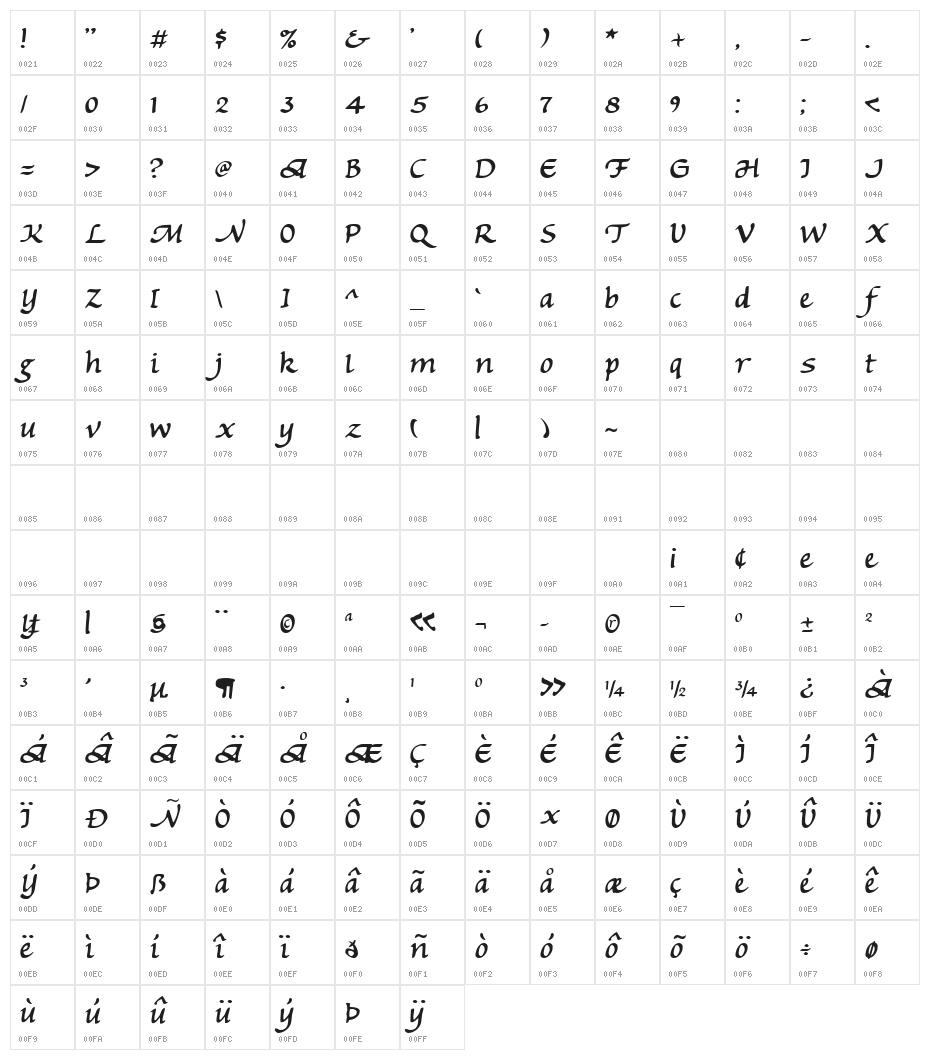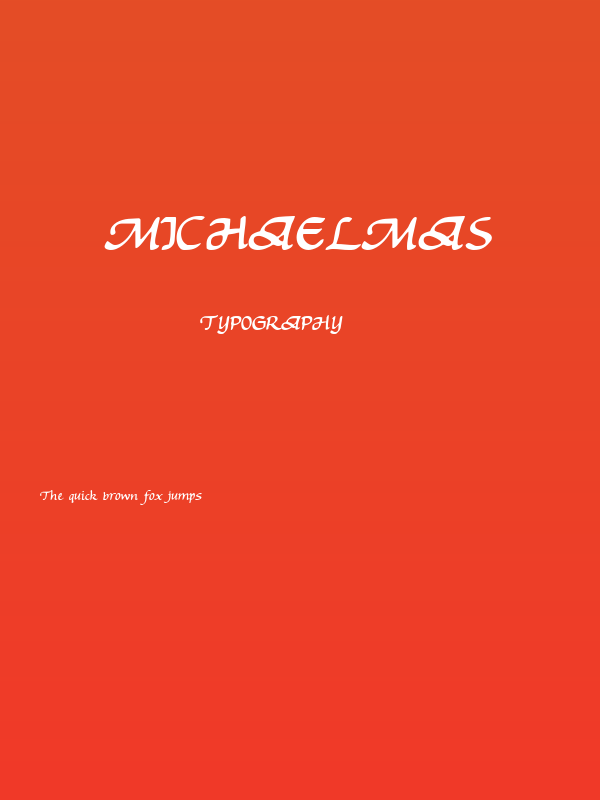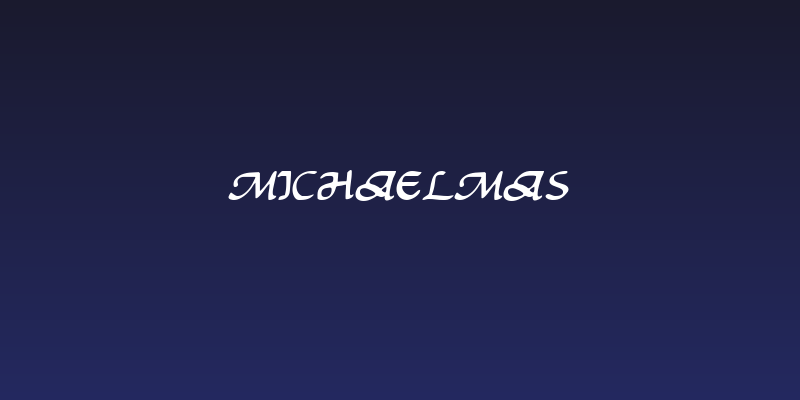
Michaelmas Font
Michaelmas Description
This font features a dynamic and flowing script style, characterized by its elegant and slightly whimsical curves. The uppercase letters exhibit a sense of movement with their sweeping lines and distinctive flourishes, while the lowercase letters maintain a consistent rhythm and balance. The numerals are designed to complement the overall style, offering a harmonious blend of curves and angles. Special characters are crafted with attention to detail, enhancing the font's decorative appeal. The font's unique personality makes it suitable for creative and expressive projects.
| Use Case | Logos, Invitations, Artistic designs |
| Proposed Projects | Ideal for wedding invitations, greeting cards, branding projects, and artistic designs. |